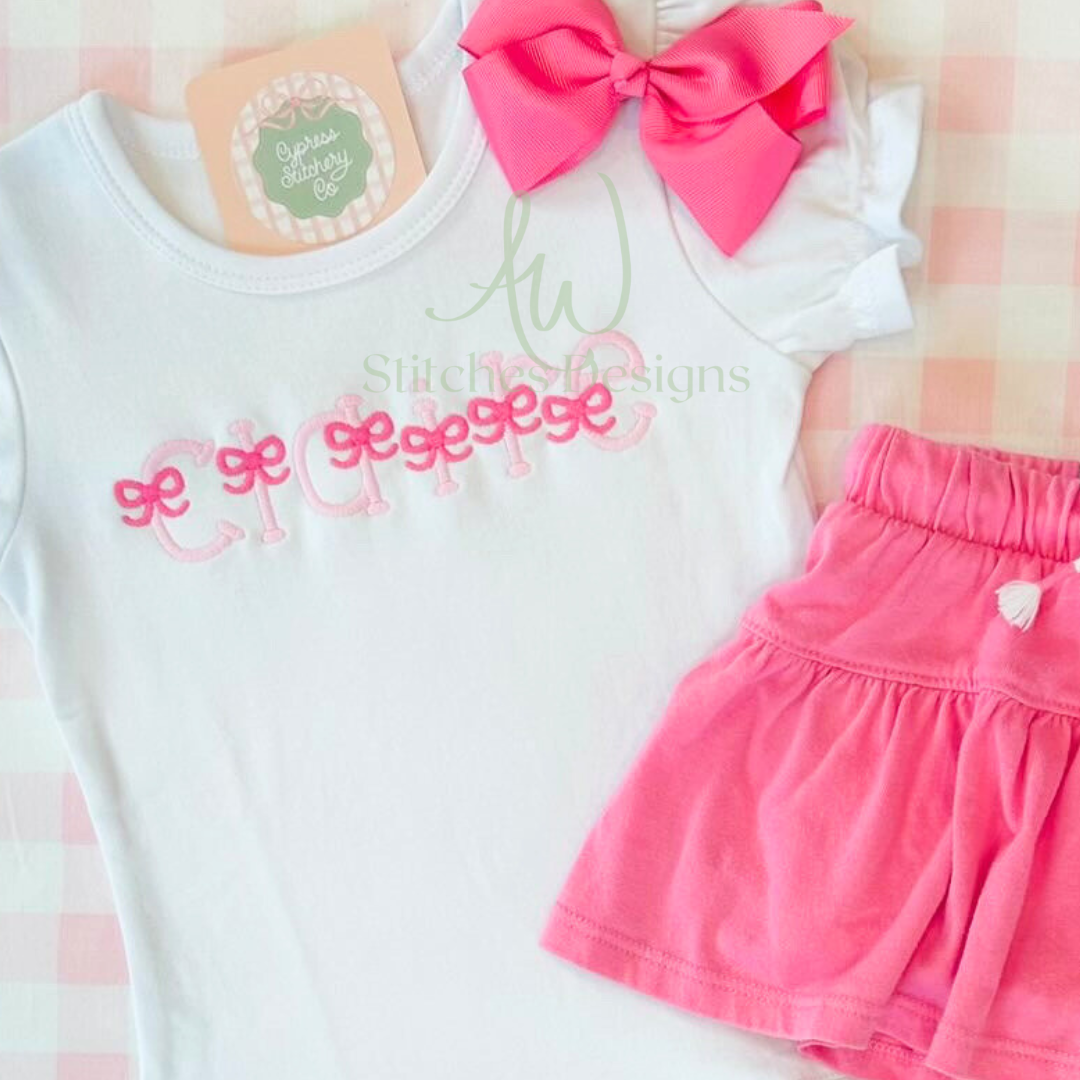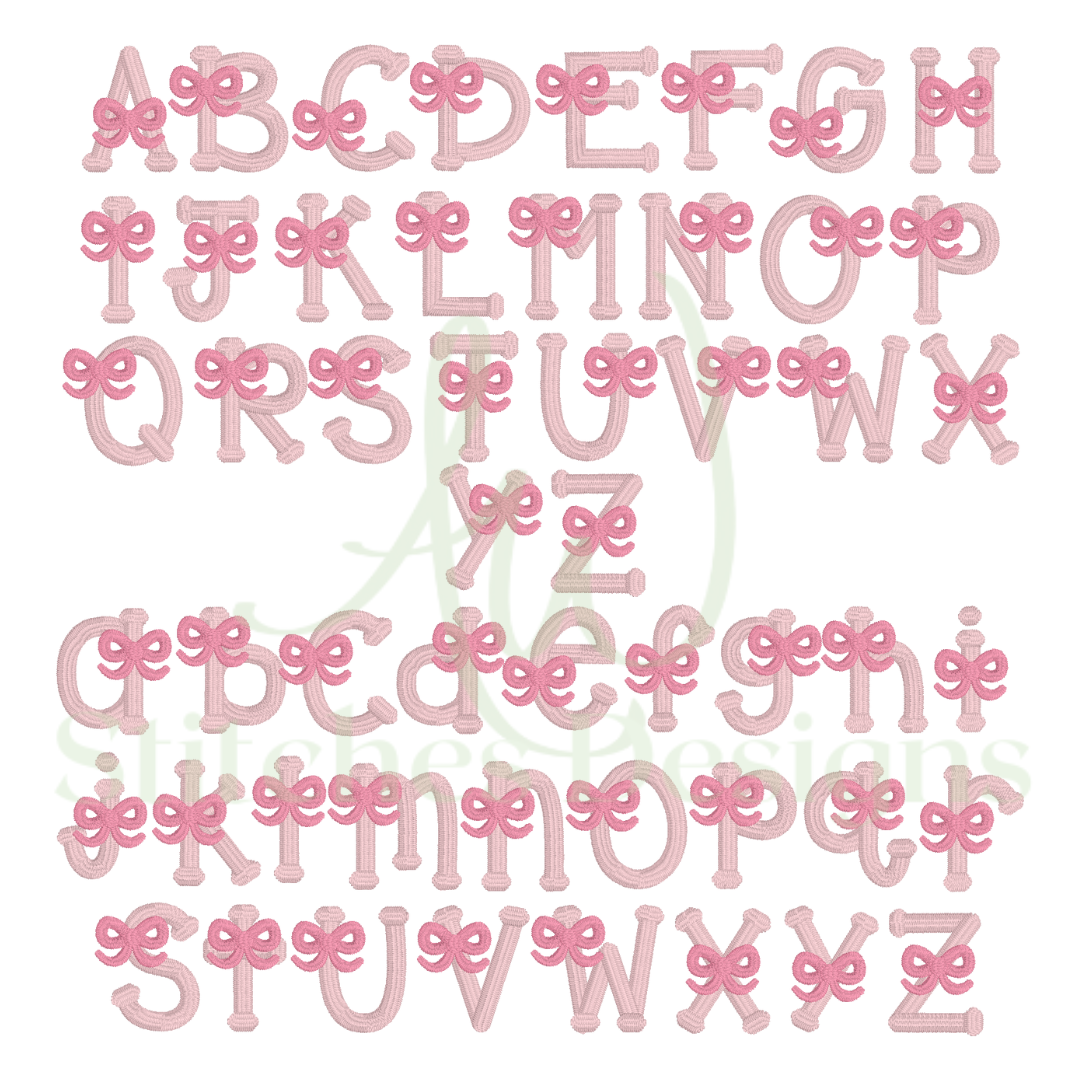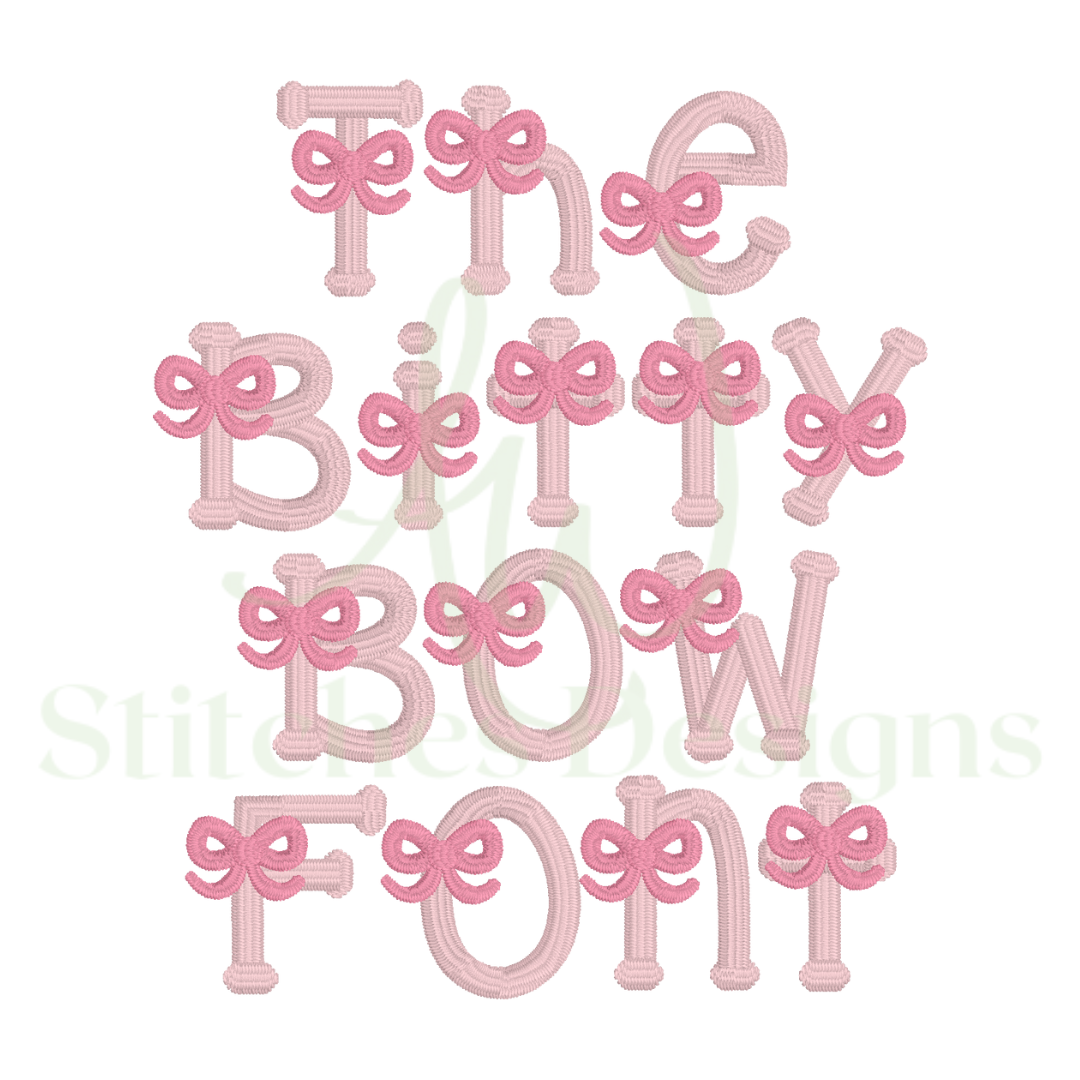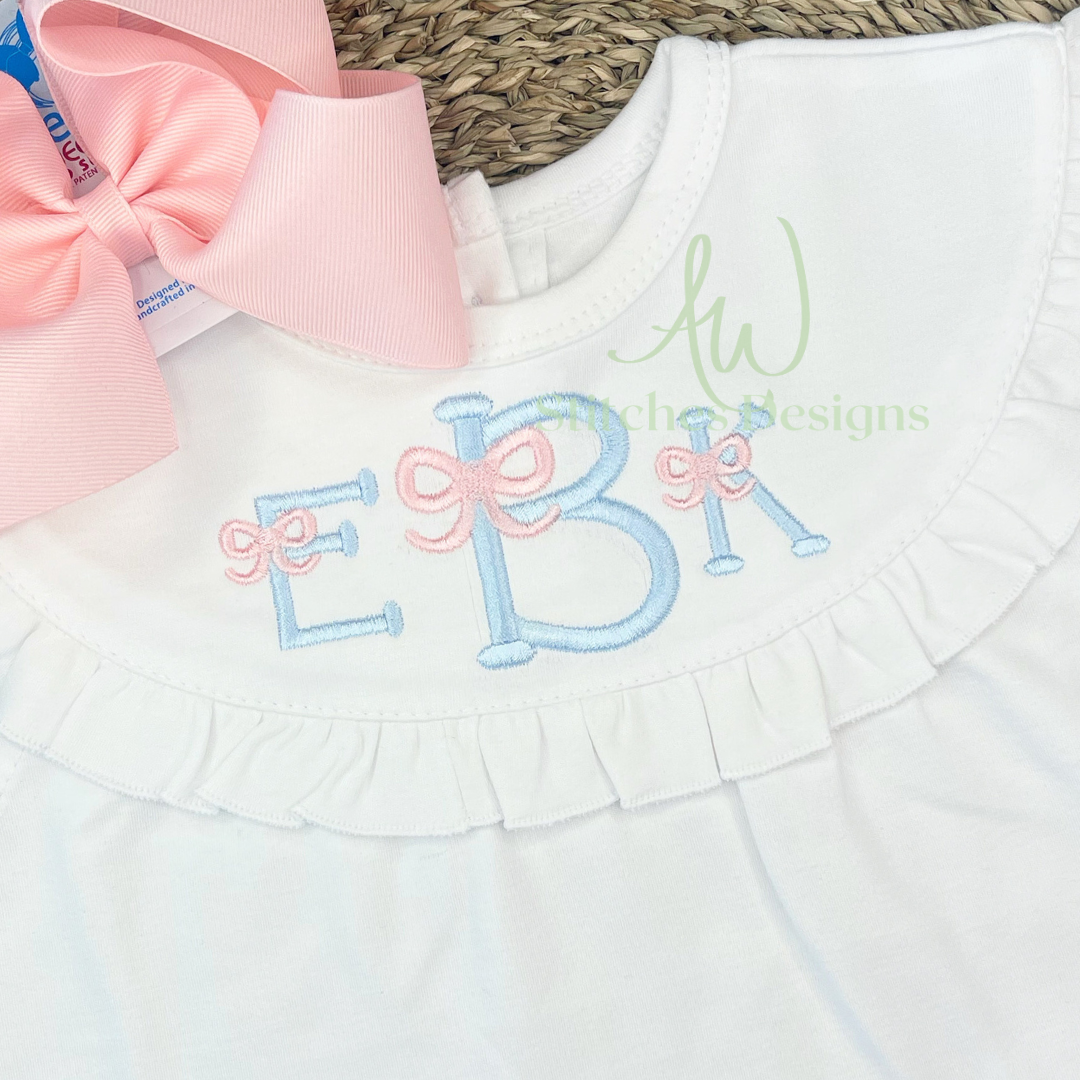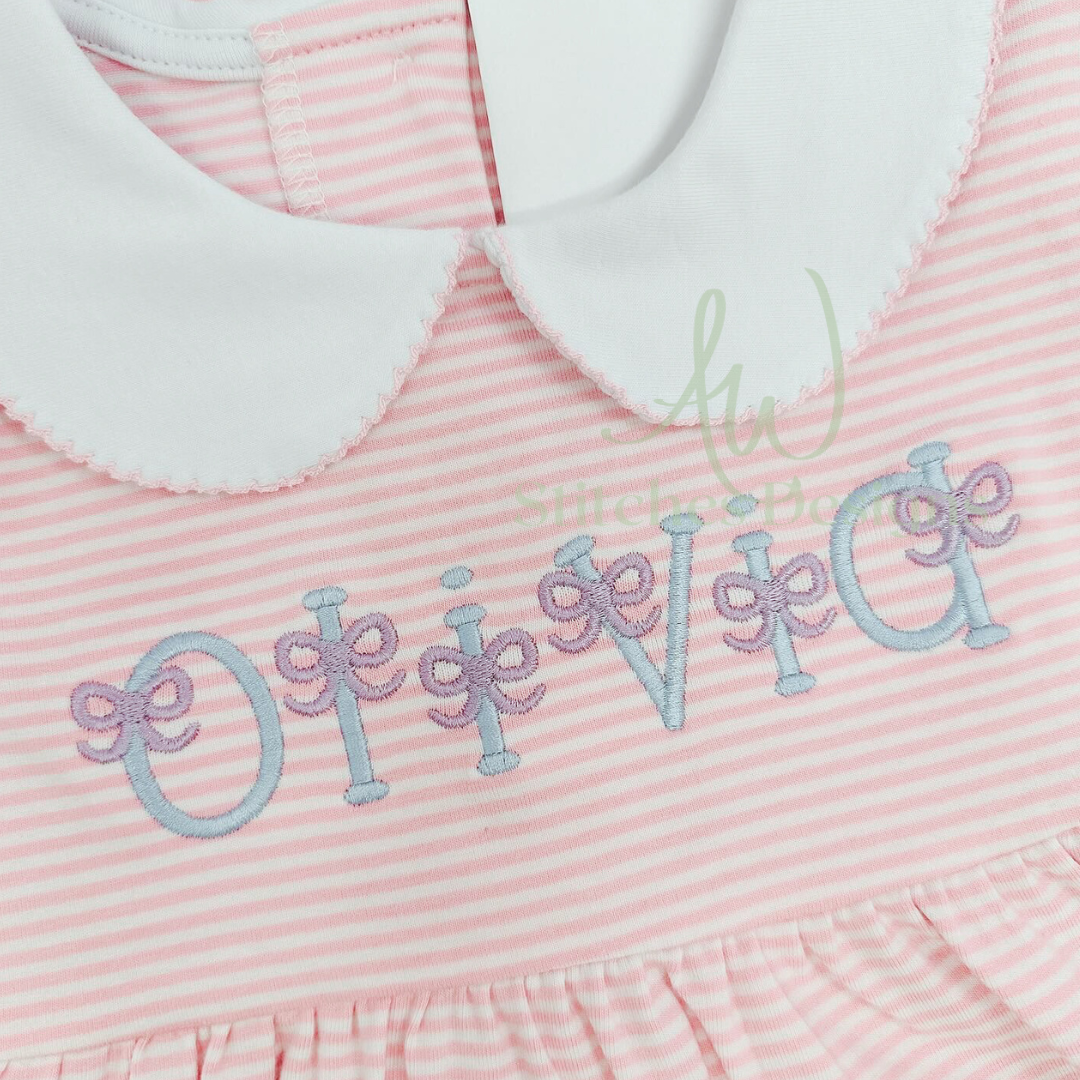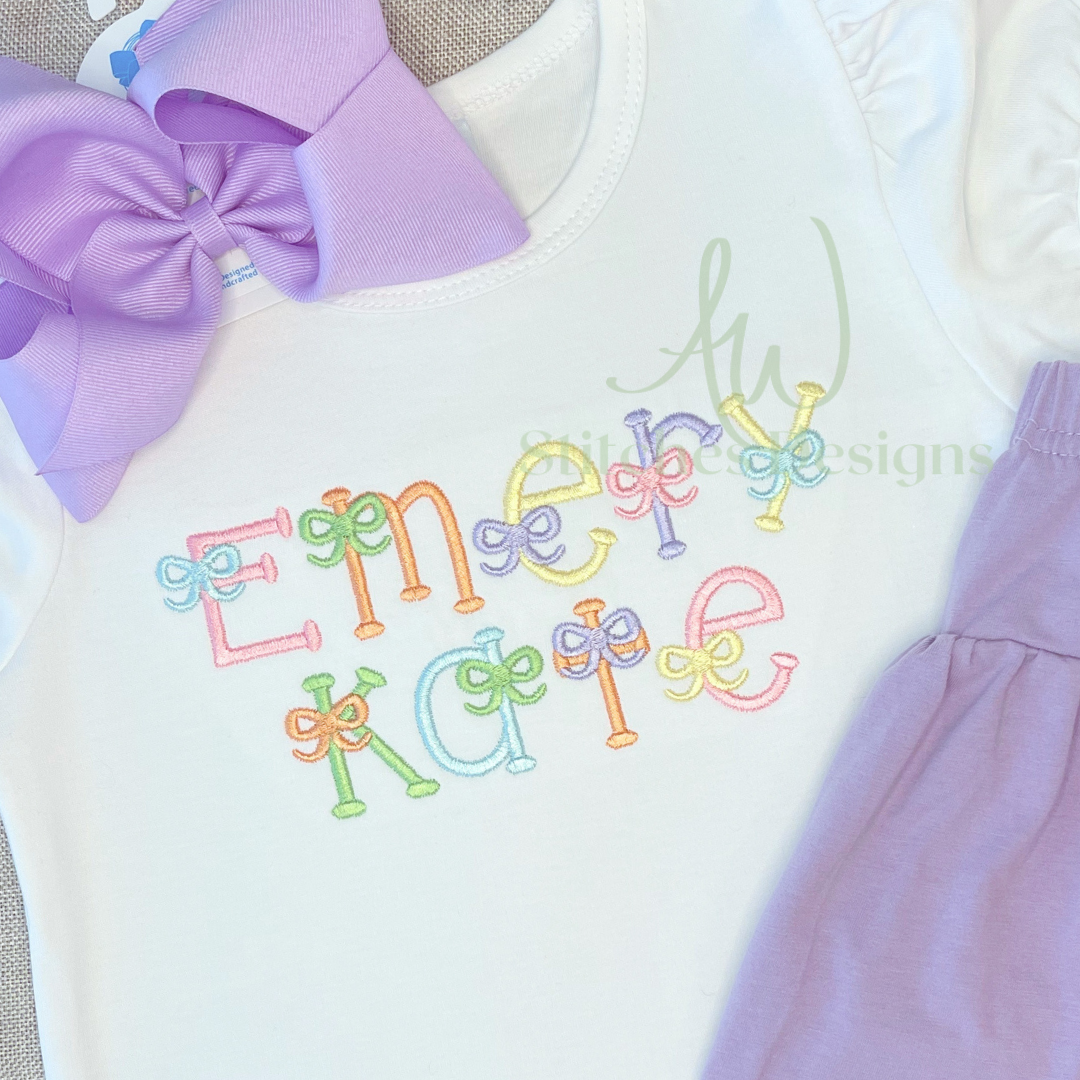
The bitty bow satin stitch font
The bitty bow satin stitch font for machine embroidery design file 1"- 2.5" upper and lowercase letters with BX.
This font includes:
-26 lower and upper case letters A through Z
This font comes in FOUR different sizes:
1 inch
1.5 inch
2 inch
2.5 inch